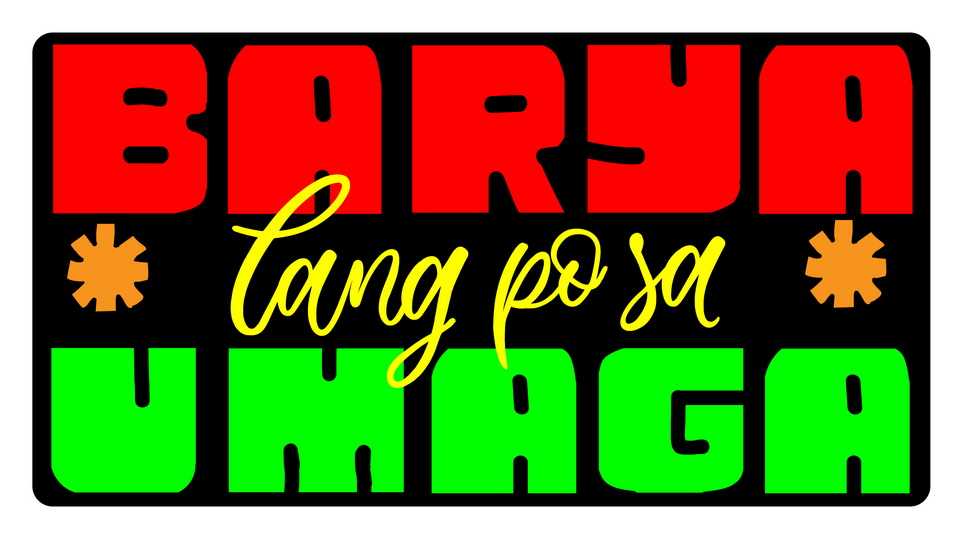
Download Barya Lang po sa Umaga font, a bold display typeface that was made to pay tribute to our hard-working Pinoy jeepney and bus drivers as well as our signboard artists.